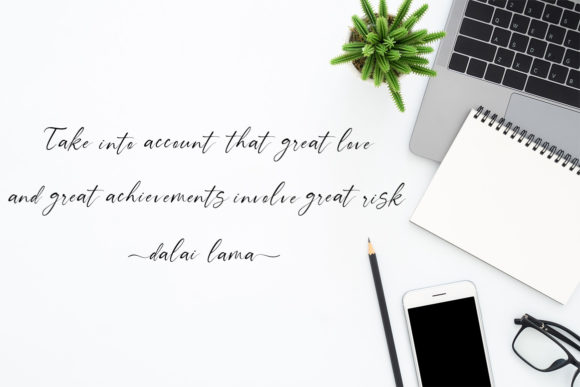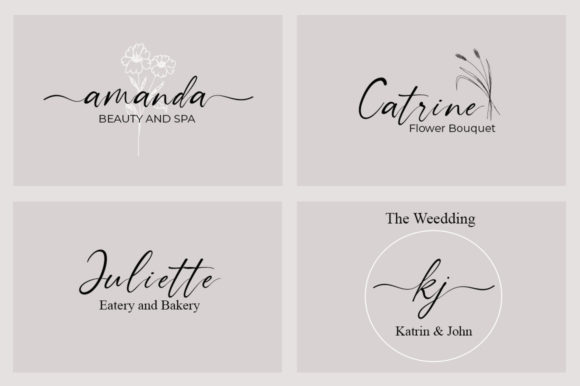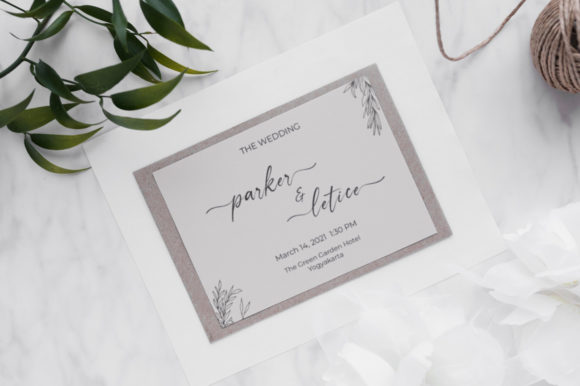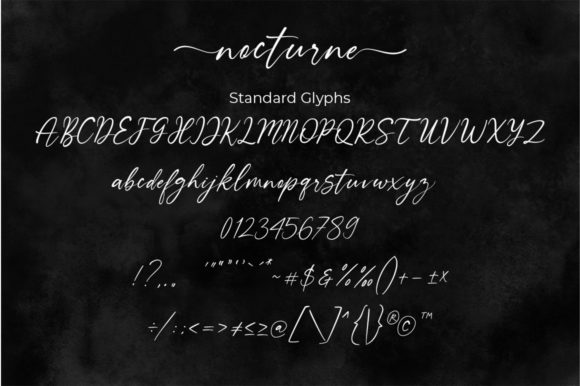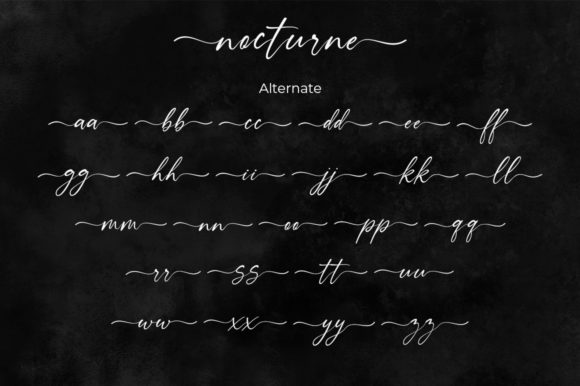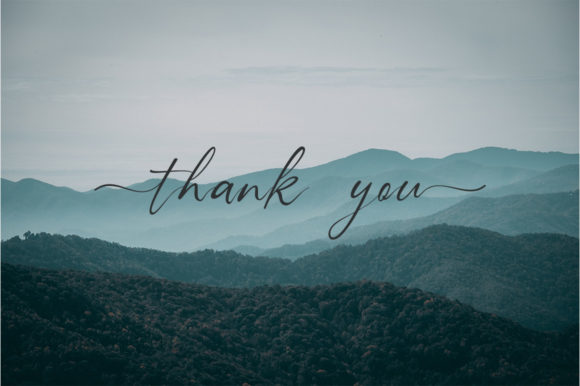
Introduction to Nocturne Font
Nocturne is a stylish and incredibly elegant script font.
It is PUA encoded which means you can access all of the glyphs and swashes with ease .
Key Features of Nocturne Font